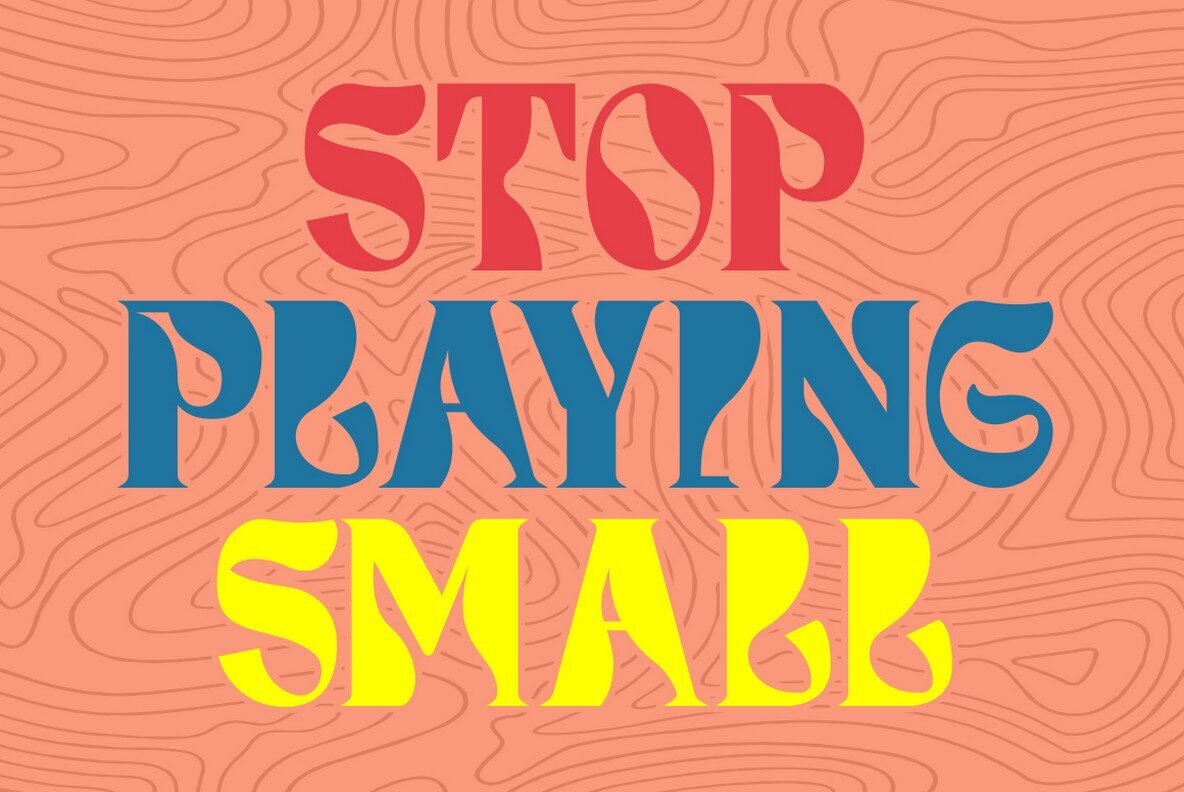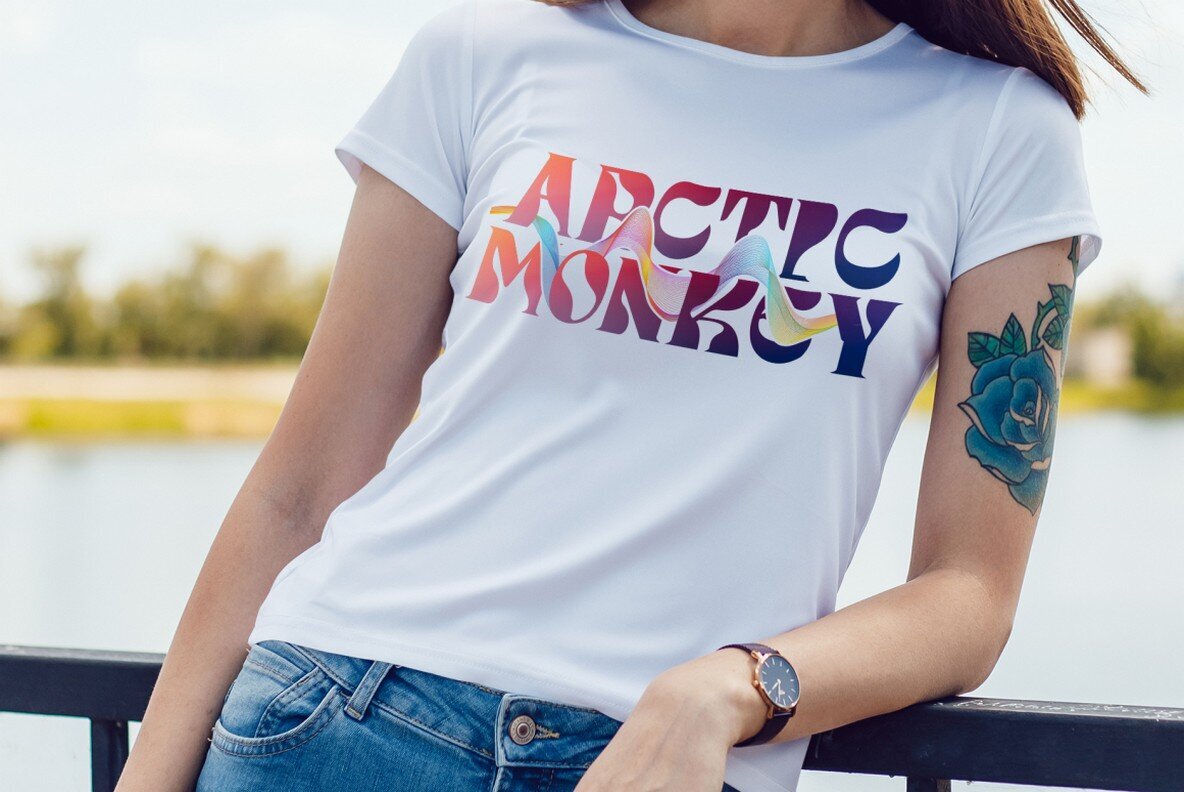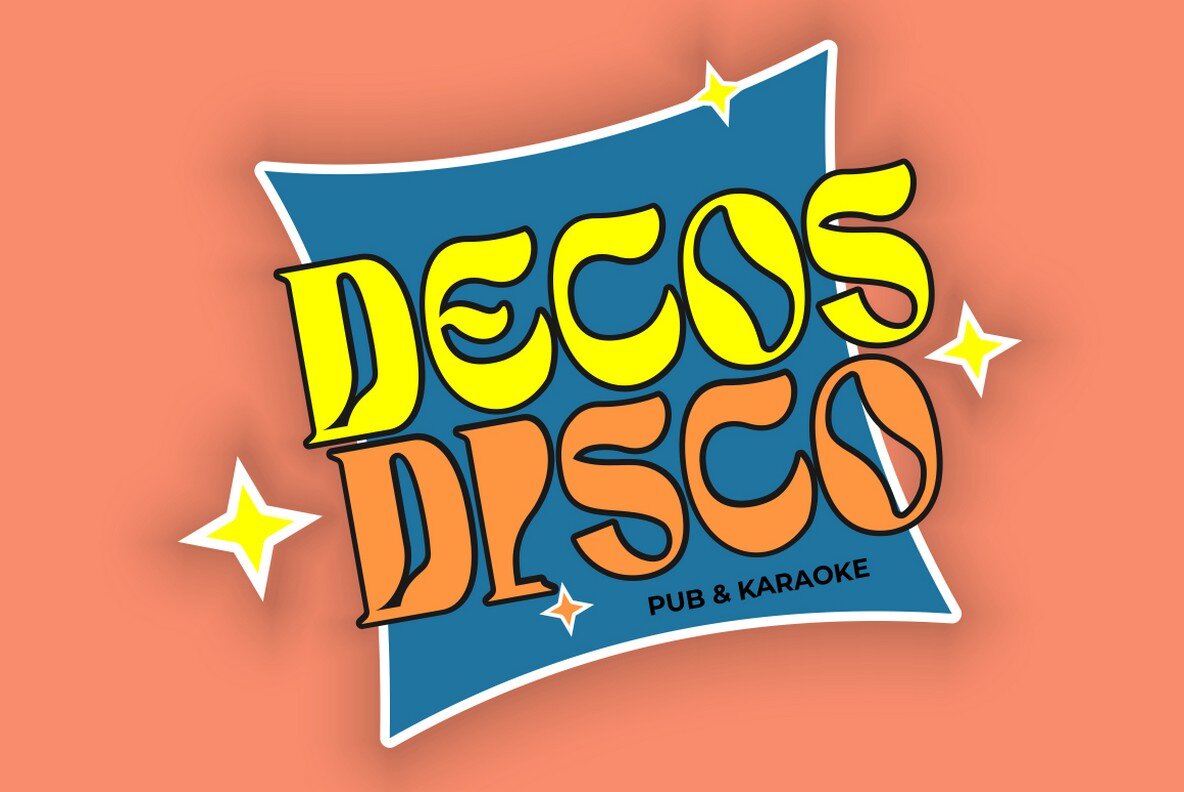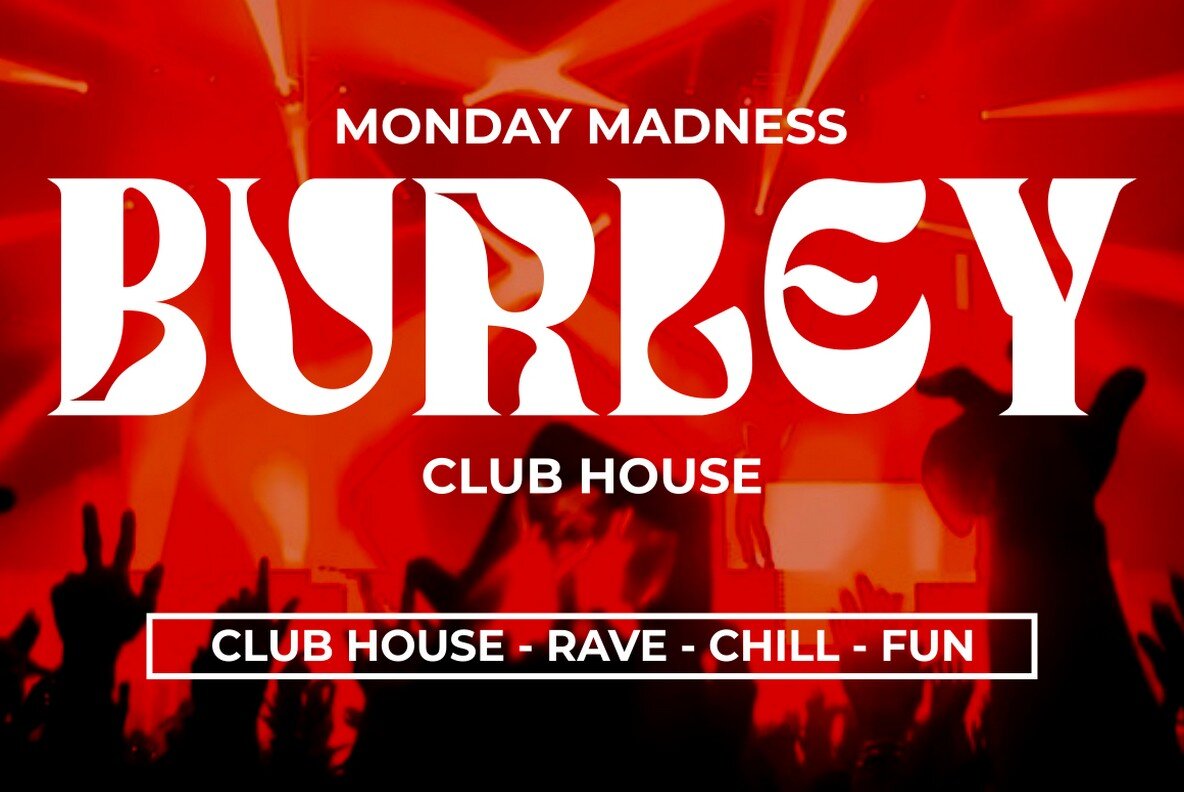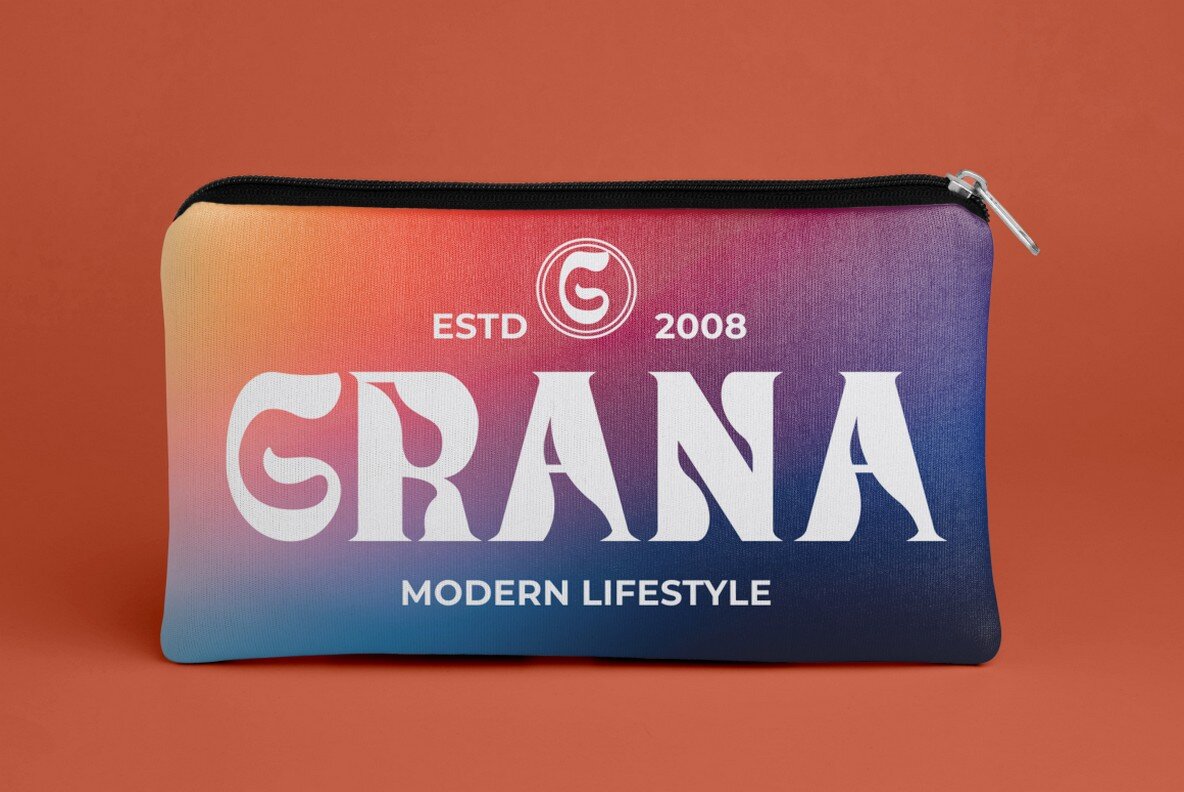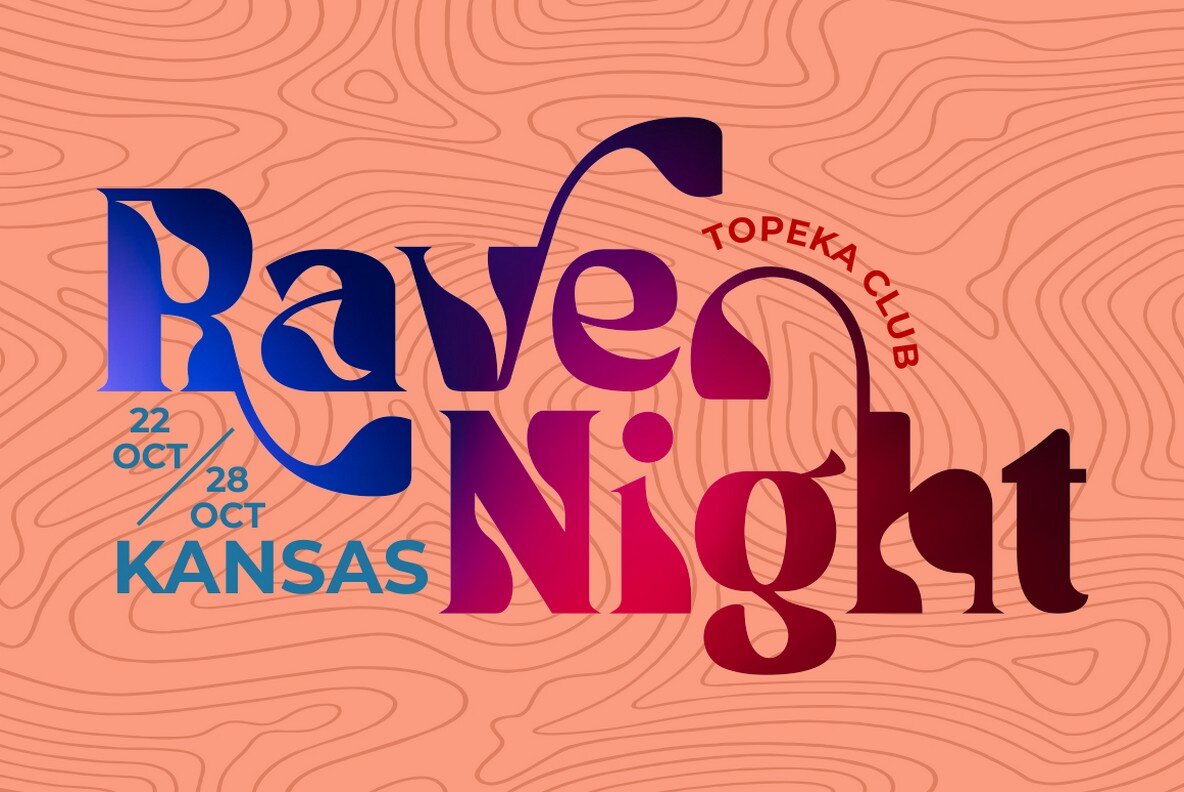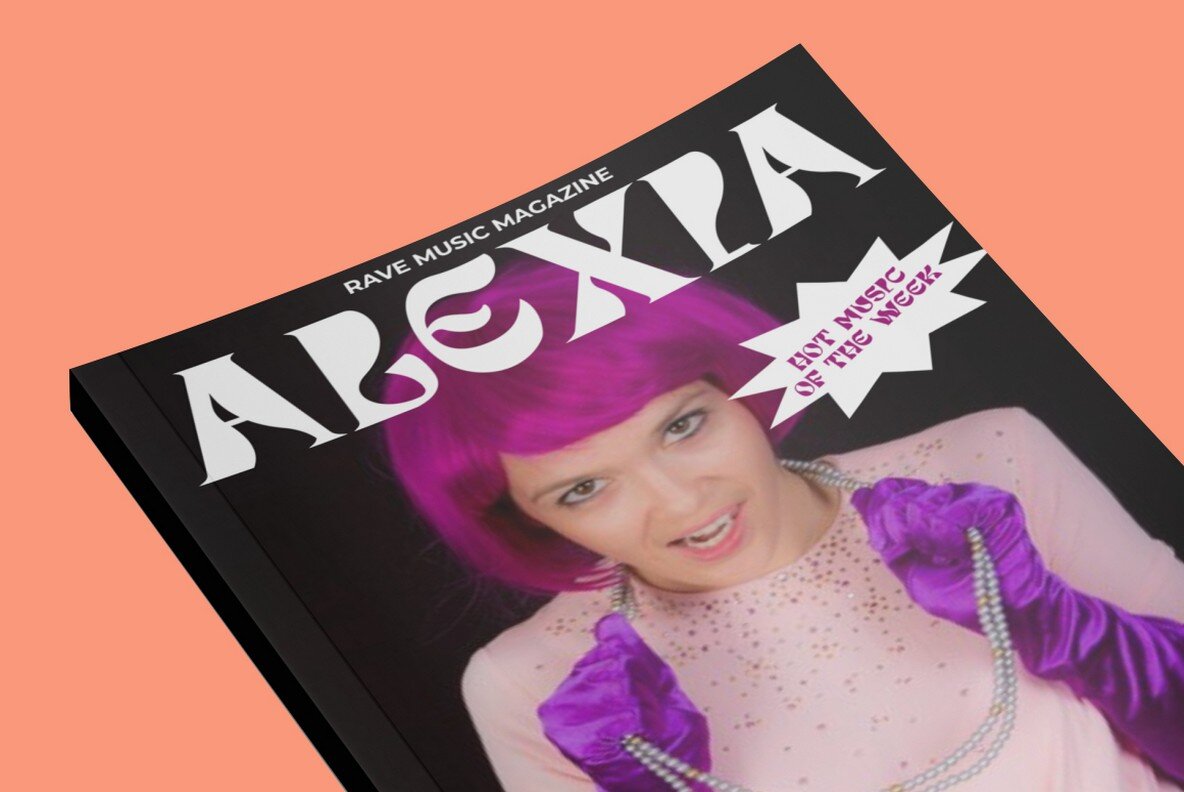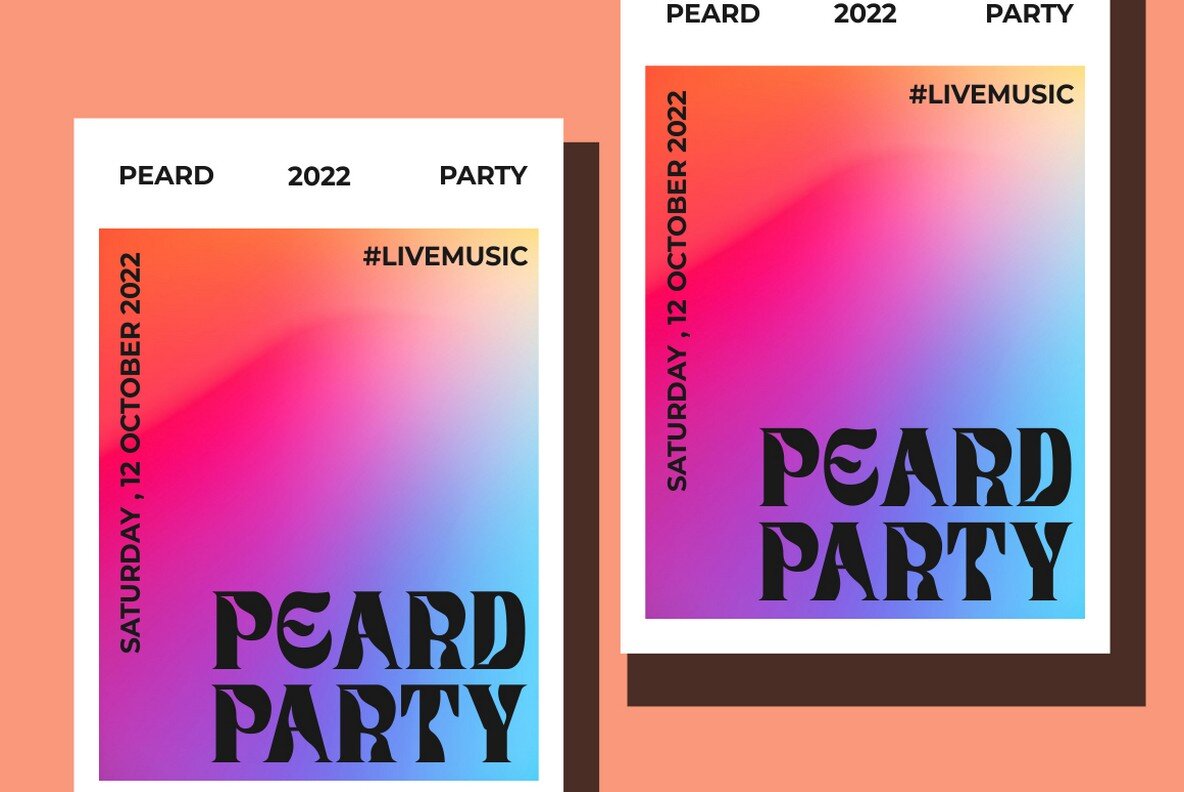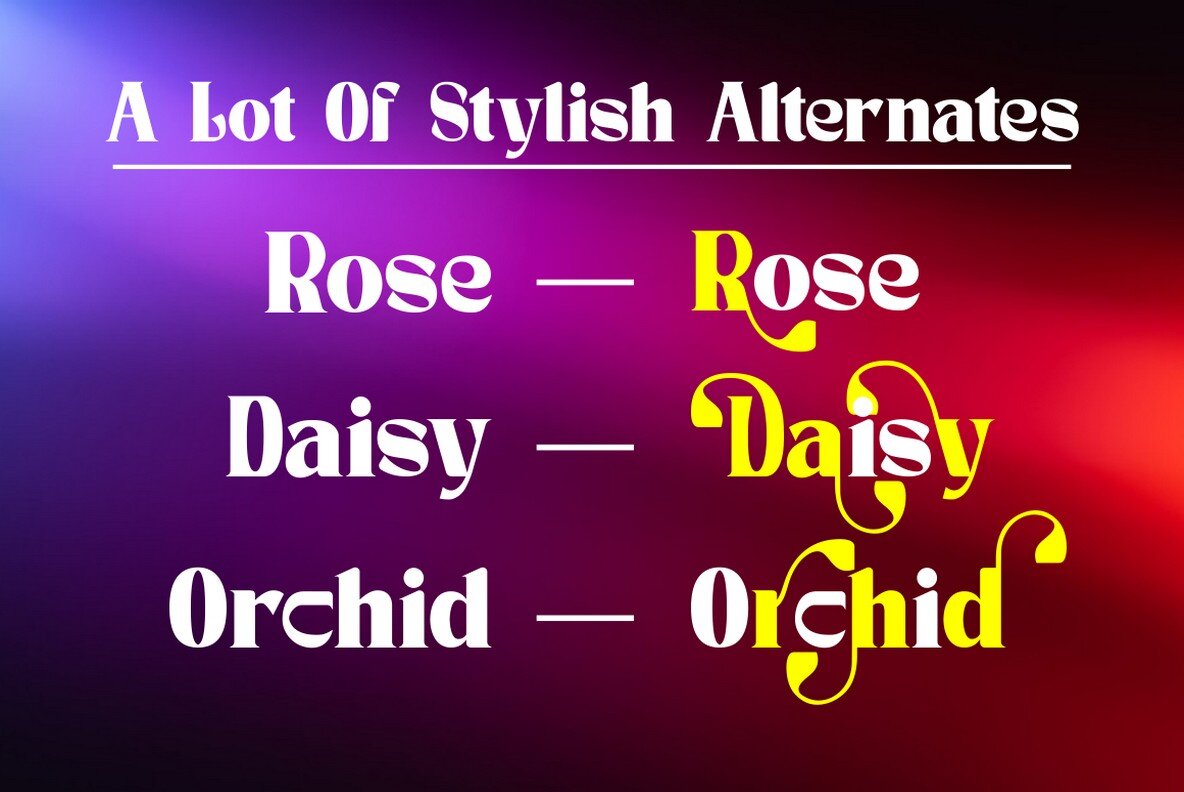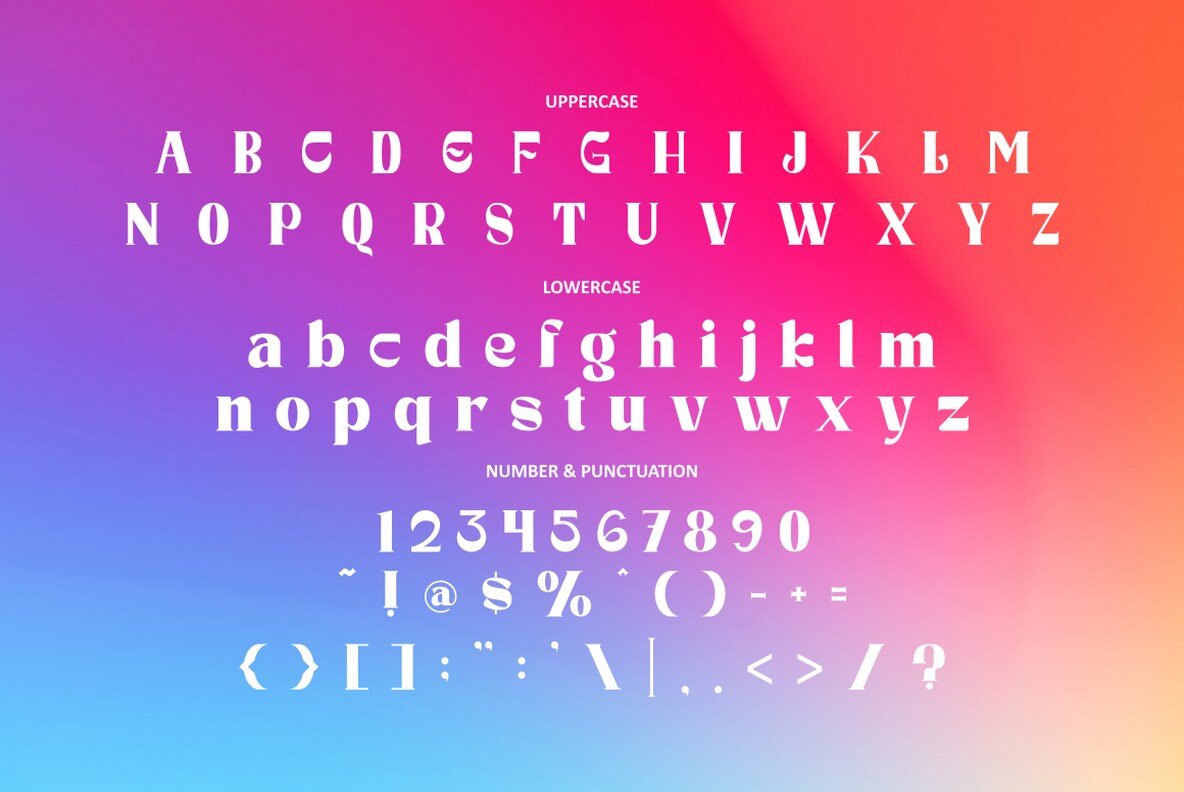
Dunver Font
Evoking the spirit of 1960s music bands, Dunver is a nostalgic display typeface that marries classic flair with playful charm. The font draws inspiration from vintage album covers and posters, infusing a groovy and lively allure into every design element. Dunver’s unique combination of features, like its playful ligatures, sets it apart from standard typefaces, imparting a distinct character that remains memorable long after viewing. Versatile by nature, Dunver excels across a myriad of display applications. Whether adorning album covers, posters, labels, or apparel, its lively impression shines through, making it perfect for logos, signage, or even greeting cards. With multilingual support, it bridges cultural barriers effortlessly, enhancing your creative possibilities with a single design choice.Dunver: A Groovy Display Typeface Inspired by the '60s